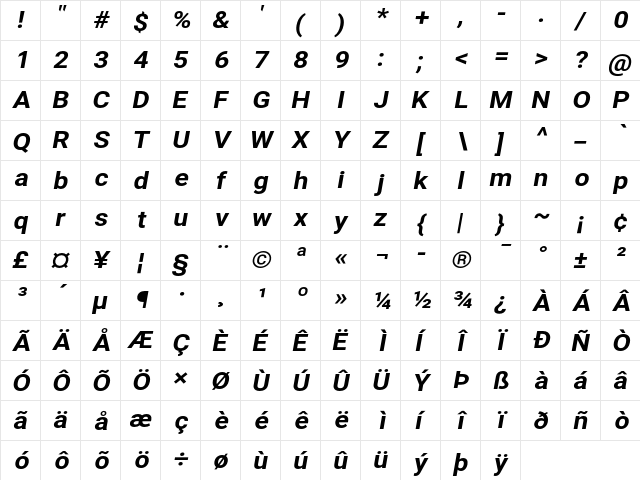
Asimov WidIt
Design Context for Asimov Typeface
Asimov takes a measured approach to typography — its balanced proportions and neutral character make it a reliable workhorse for both digital and print work.
Pro Tip: Pair Asimov with a font of contrasting weight or personality to build a more expressive typographic hierarchy.